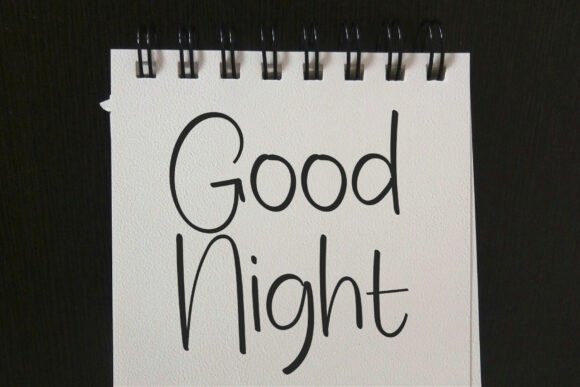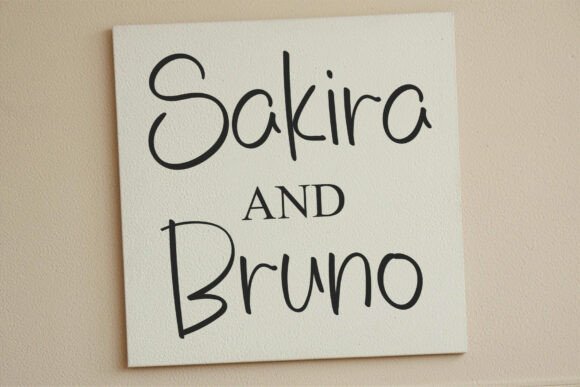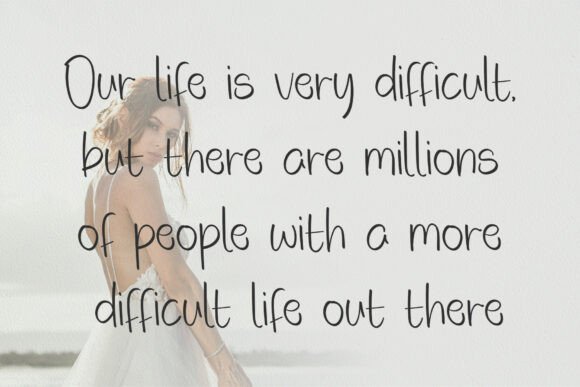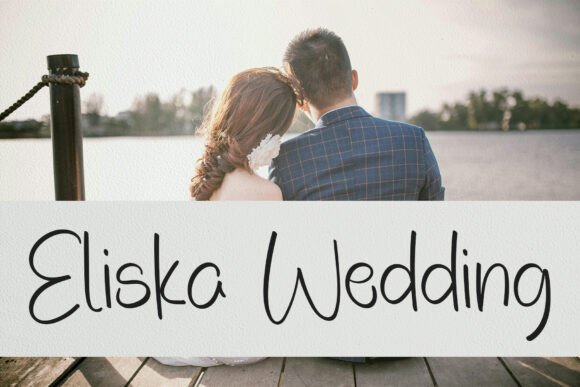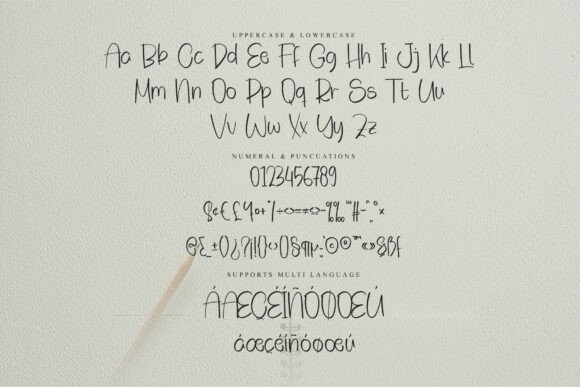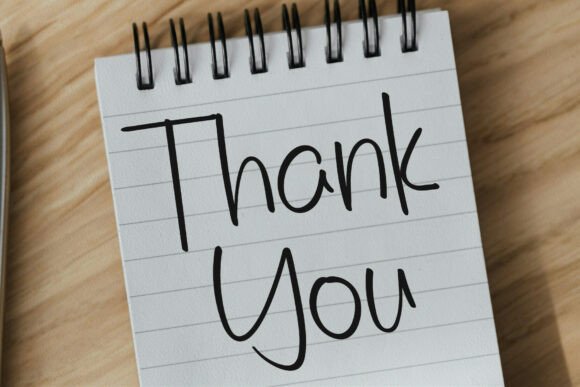
Introducing Brilliant Wedding: The Ultimate Modern Display Font for Bold Designs
Are you tired of using the same old fonts for your designs? Do you want to add a touch of personality and whimsy to your projects? Look no further than Brilliant Wedding, a vibrant and high-energy font that’s sure to make your designs stand out from the crowd. This modern display font is perfect for headlines, logos, posters, and any design that dares to be different.
The Perfect Blend of Playfulness and Modern Edge
Brilliant Wedding is a font that’s all about attitude. With its quirky curves and dynamic personality, it’s the perfect choice for designers who want to add a touch of playfulness to their projects. But don’t be fooled – this font is also sleek and contemporary, making it perfect for modern designs that require a bold and edgy look.
Whether you’re designing a bold magazine cover, a trendy streetwear logo, or eye-catching ads, Brilliant Wedding delivers the perfect mix of playfulness and modern edge. This font is versatile and can be used for a wide range of projects, from branding and social media to editorial and advertising.
Key Features of Brilliant Wedding
• Vibrant and High-Energy Design: Brilliant Wedding is a font that’s full of energy and life. Its quirky curves and dynamic personality make it perfect for designs that need to stand out.
• Modern Display Font: This font is specifically designed for headlines, logos, and other display purposes. It’s perfect for making a bold statement.
• Playful yet Contemporary Vibe: Brilliant Wedding has a playful vibe that’s perfect for designs that need to be fun and youthful, but it’s also sleek and contemporary enough to work for modern designs.
• Versatile and Flexible: This font can be used for a wide range of projects, from branding and social media to editorial and advertising.
How to Use Brilliant Wedding in Your Designs
Brilliant Wedding is a versatile font that can be used in a variety of ways. Here are a few ideas to get you started:
• Headlines and Titles: Use Brilliant Wedding as a headline font to add a touch of personality and whimsy to your designs.
• Logos and Branding: This font is perfect for logos and branding projects that require a bold and edgy look.
• Posters and Flyers: Brilliant Wedding is a great choice for posters and flyers that need to grab attention.
• Social Media Graphics: Use this font to create eye-catching social media graphics that will help your brand stand out.
Why Choose Brilliant Wedding?
There are many fonts to choose from, but Brilliant Wedding stands out from the crowd. Here are a few reasons why:
• Unique and Quirky Design: This font has a unique and quirky design that’s sure to make your designs stand out.
• High-Quality and Professional: Brilliant Wedding is a high-quality font that’s been designed with professionalism in mind.
• Easy to Read and Versatile: This font is easy to read and versatile, making it perfect for a wide range of projects.
If you’re looking for a font that’s bold, edgy, and full of personality, look no further than Brilliant Wedding. This modern display font is perfect for designers who want to add a touch of whimsy and playfulness to their projects. With its quirky curves and dynamic personality, Brilliant Wedding is sure to make your designs stand out from the crowd.